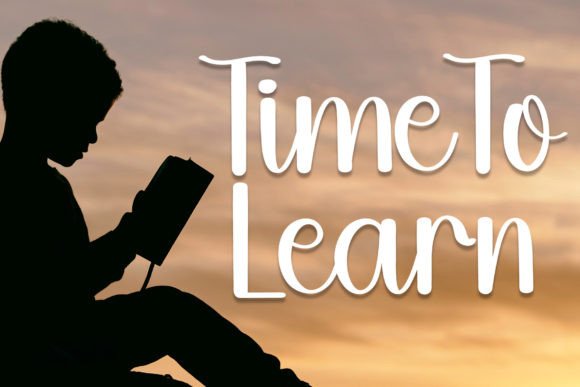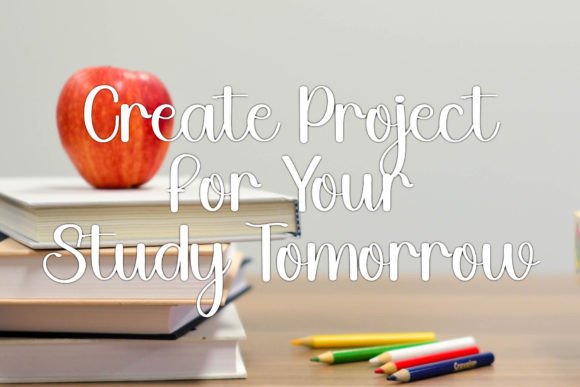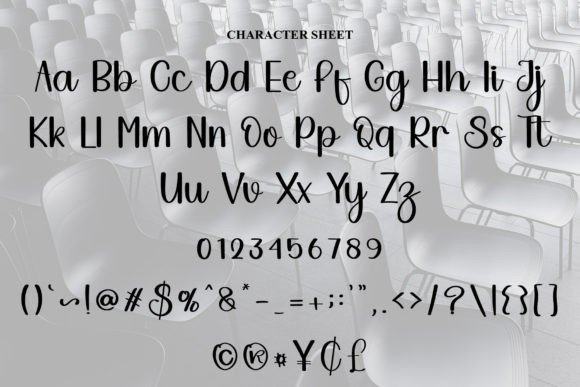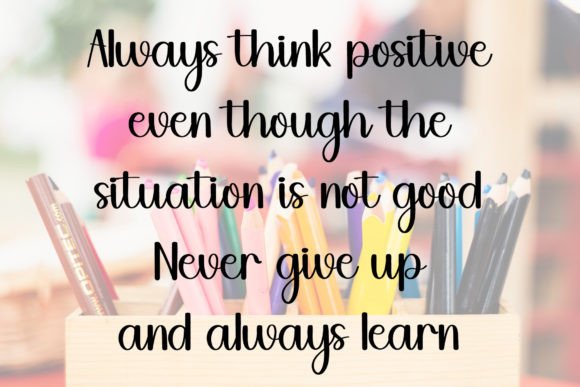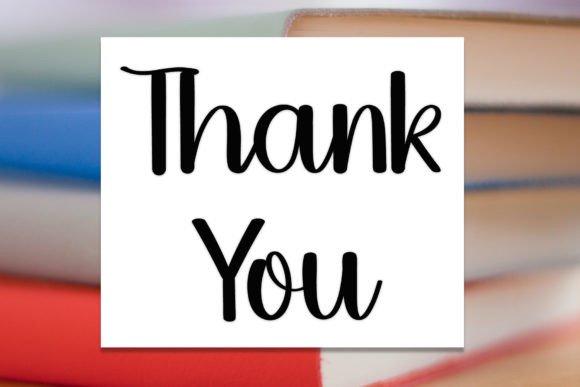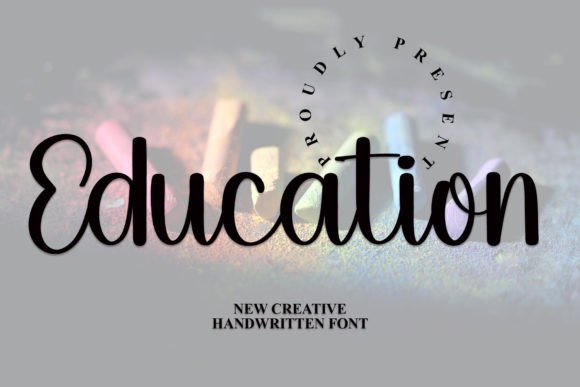
Education Font: Adding a Touch of Romance to Your Designs
Education is an enchanting handwritten font that has captured the hearts of designers and crafters alike. This versatile script font has a wide spectrum of applications, ranging from greeting cards to headlines, and is guaranteed to add a romantic feel to your next project. In this article, we’ll dive into the world of Education Font, exploring its features, uses, and benefits, as well as provide tips on how to make the most of this beautiful font.
What is Education Font?
Education Font is a handwritten script font that exudes elegance and sophistication. Its enchanting strokes and delicate letterforms make it perfect for designs that require a personal touch. This font is ideal for creating romantic and whimsical designs that capture the essence of love, friendship, and celebration.
Features of Education Font
- Handwritten script: Education Font boasts a beautiful, handwritten script that adds a personal touch to any design.
- Versatile: This font is suitable for a wide range of applications, from greeting cards to headlines, and even social media graphics.
- Romantic feel: Education Font is guaranteed to add a romantic feel to your designs, making it perfect for Valentine’s Day, wedding, or anniversary-themed projects.
- Elegant strokes: The font features delicate and elegant strokes that give it a sophisticated look.
Uses of Education Font
Education Font is an incredibly versatile font that can be used in various design projects, including:
- Greeting cards: Create beautiful and heartfelt greeting cards for special occasions like Valentine’s Day, birthdays, or anniversaries.
- Headlines: Use Education Font to add a touch of elegance to your headlines, making them stand out and grab attention.
- Social media graphics: Add a personal touch to your social media graphics, such as Instagram posts or Facebook covers, with Education Font.
- Wedding designs: This font is perfect for wedding-themed designs, including invitations, programs, or wedding stationery.
Benefits of Using Education Font
Using Education Font in your designs comes with several benefits, including:
- Unique and creative: Education Font adds a unique and creative touch to your designs, setting them apart from others.
- Emotional connection: The romantic feel of this font helps create an emotional connection with your audience, making your designs more relatable and engaging.
- Easy to read: Despite its elegant strokes, Education Font is easy to read, making it perfect for body text and headlines.
Tips for Using Education Font
To make the most of Education Font, follow these tips:
- Pair with complementary fonts: Pair Education Font with complementary fonts to create a harmonious and visually appealing design.
- Use contrasting colors: Use contrasting colors to make your text stand out and add depth to your design.
- Experiment with sizes: Experiment with different font sizes to create visual hierarchy and add emphasis to your design.
Education Font is a beautiful and versatile script font that adds a romantic feel to any design. Its enchanting strokes and delicate letterforms make it perfect for a wide range of applications, from greeting cards to headlines. With its unique and creative touch, Education Font is sure to capture the hearts of designers and crafters alike. So, go ahead and get creative with Education Font – your designs will thank you!